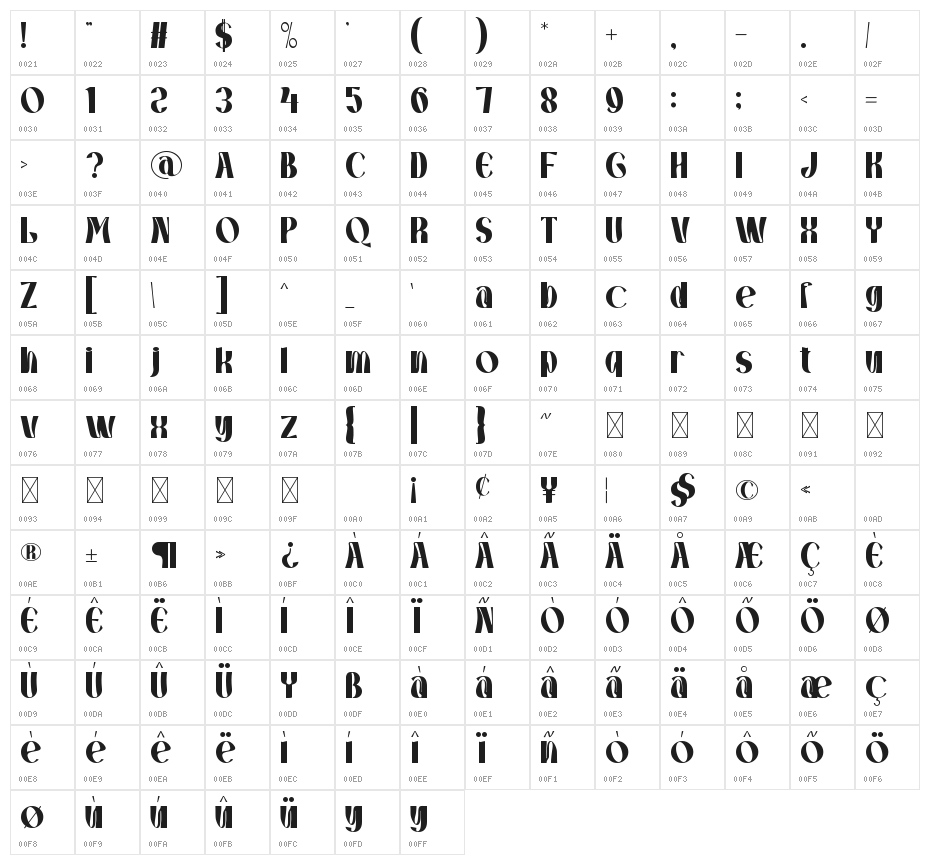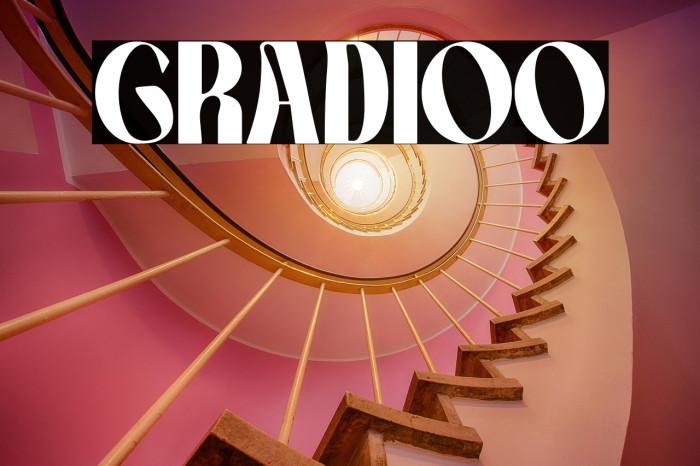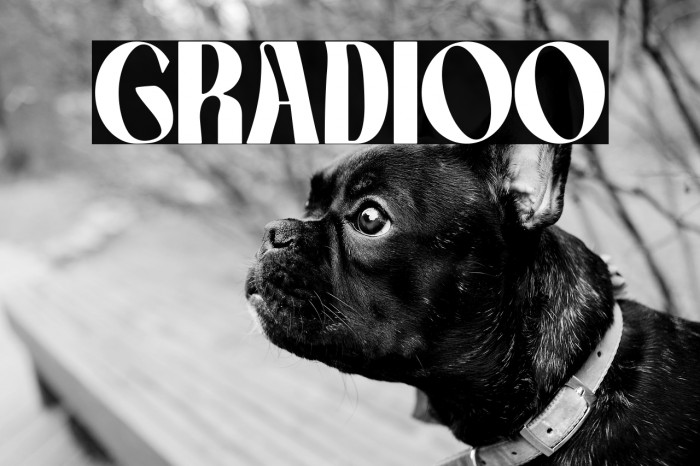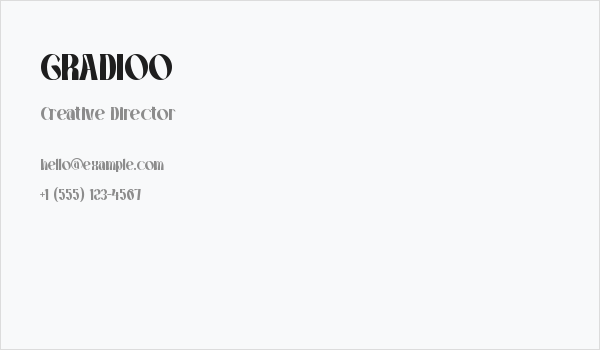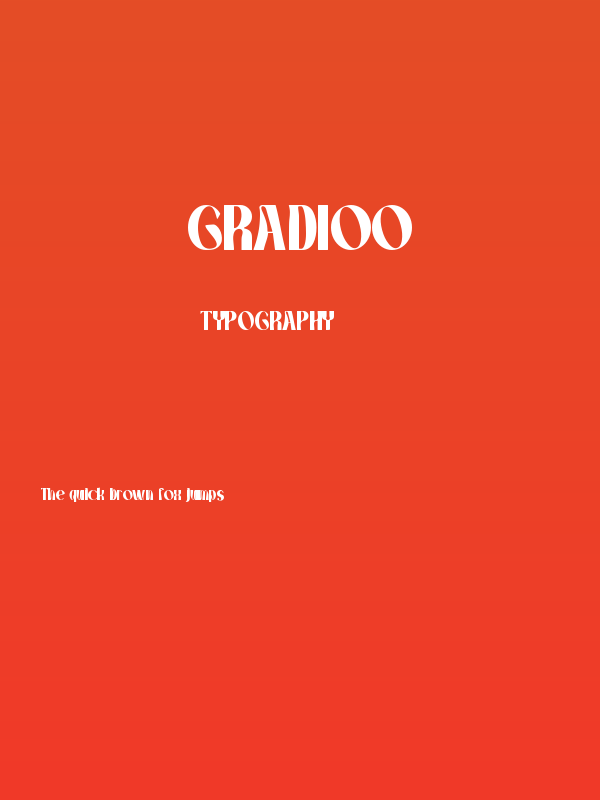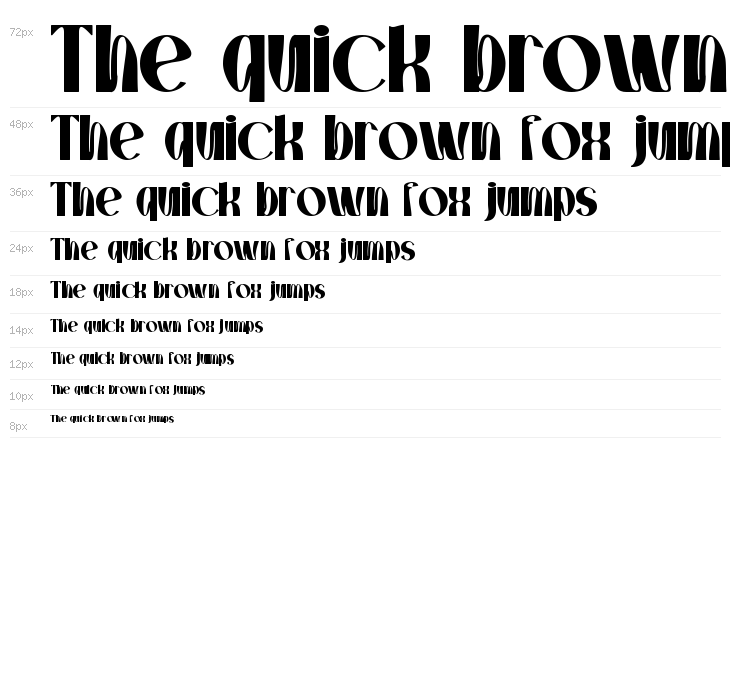
GRADIOO Font
GRADIOO Description
This font features a bold and artistic design with a strong emphasis on geometric shapes and high contrast between thick and thin strokes. The uppercase letters have a distinctive flair, with sharp angles and curves that create a dynamic and eye-catching appearance. The lowercase letters maintain a similar style, offering a cohesive look across both cases. Numbers and special characters are equally bold and stylized, making them stand out in any design. The overall aesthetic is modern and decorative, suitable for projects that require a unique and striking visual impact.
| Proposed Projects | Ideal for branding, posters, headlines, and any project needing a bold, artistic touch. |